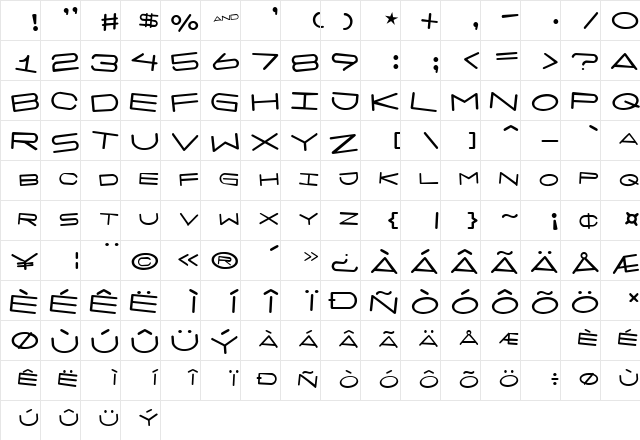
7 days rotated Regular
Design Context for 7 days rotated Typeface
7 days rotated takes a measured approach to typography — its balanced proportions and neutral character make it a reliable workhorse for both digital and print work.